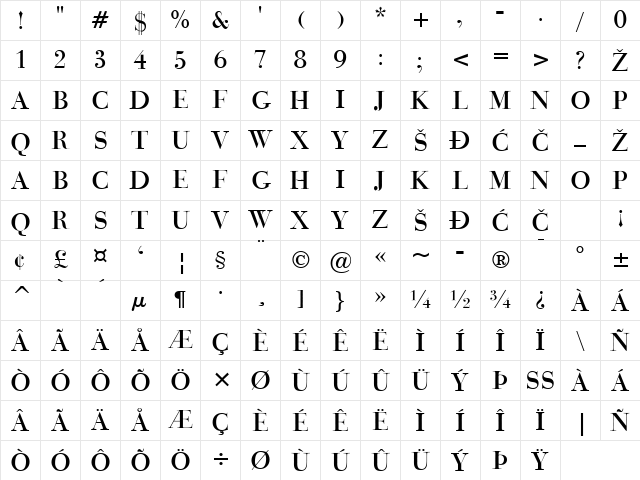
Bauer BodoniTitling Regular Free Font
Bauer BodoniTitling Regular
Design Context for Bauer BodoniTitling
Bauer BodoniTitling is a composed and adaptable typeface that performs quietly and consistently across a wide range of design contexts.